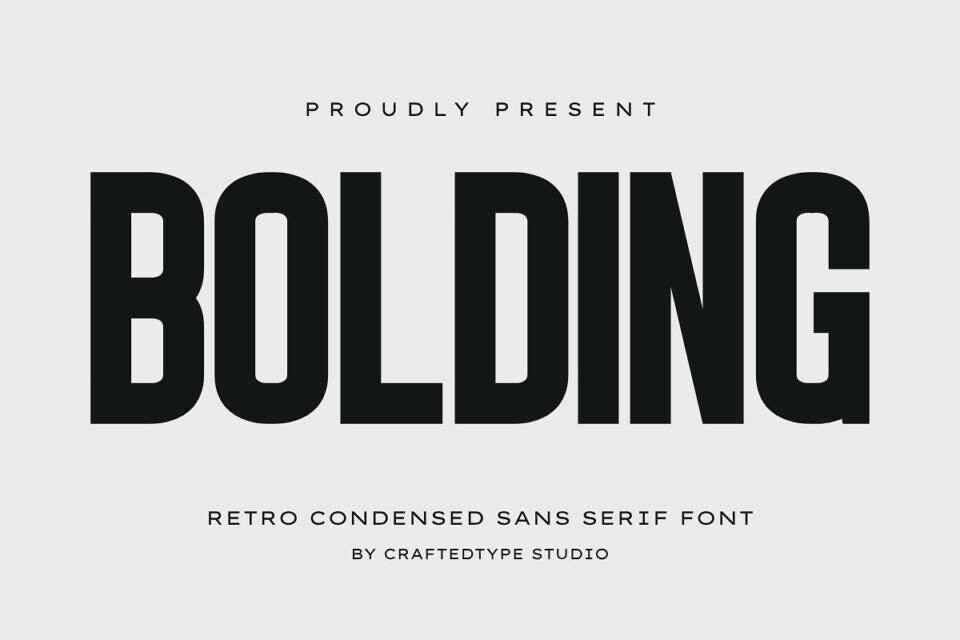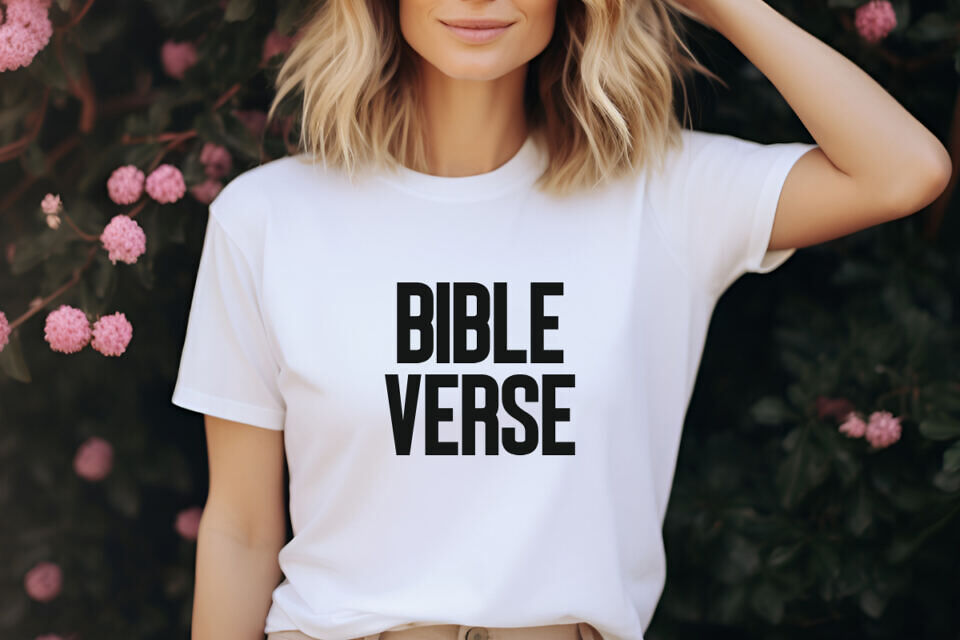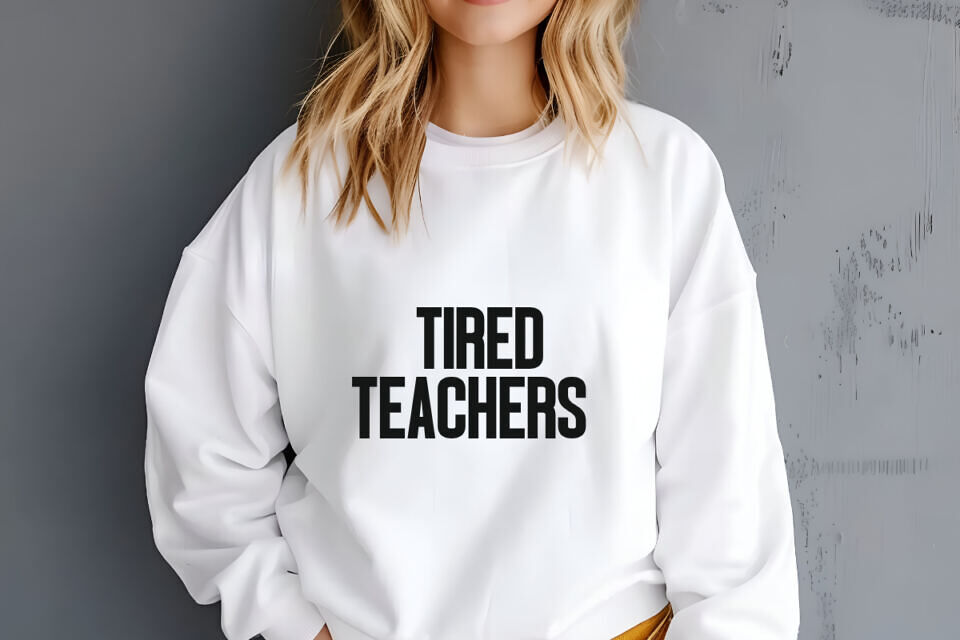
Bolding is a sleek and stylish retro condensed sans serif font designed for creators who value clean aesthetics and strong visual impact.
With its tall, narrow letterforms and elegant spacing, this font is perfect for Print On Demand projects like t-shirts, posters, mugs, and tote bags, as well as for film titles, branding, logos, and modern packaging. Its versatile style fits both professional and playful designs, making it ideal for crafting projects, minimalist branding, or cinematic visuals.